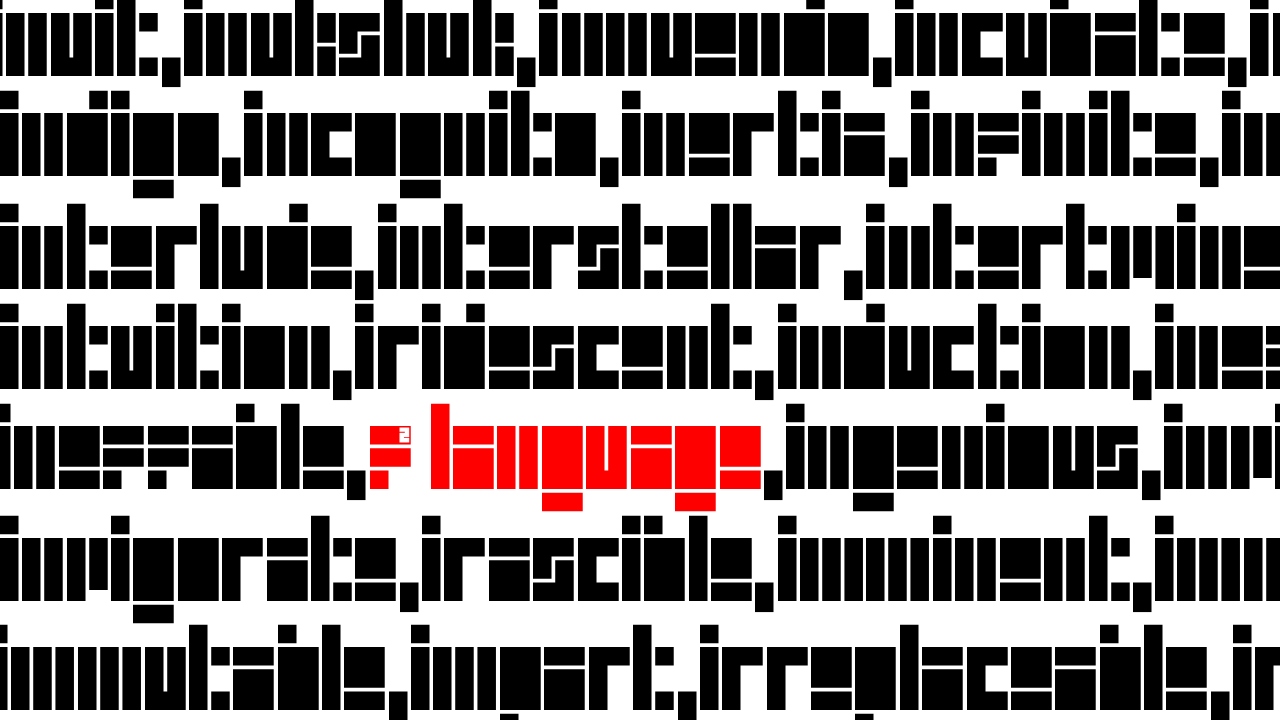
Surprisingly legible. How about trying it with the uppercase?
Minimalist typeface with blocky elements. I think the text is not legible, but the reader may be able to decipher it. Letters like the c, i, l, r, and u are OK. However, the a, e, m, n, w (and more) are too extreme. Unless you already guessed the word (innuendo), they are unrecognisable. Is that a letter t, or an l followed by a colon? The letter f looks like a small capital, not a lowercase. This font is utterly useless for strings of characters such as passcodes or crypto addresses, when you can't guess the words.
Sometimes the aim is to make the reader pause and concentrate on the text for a while. If that was your intention with ultra-minimalism, you've clearly succeeded.